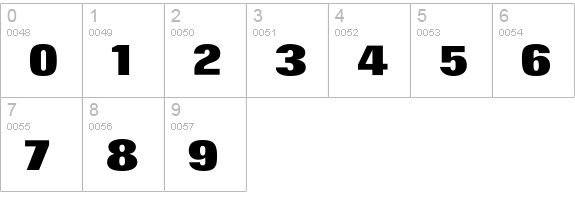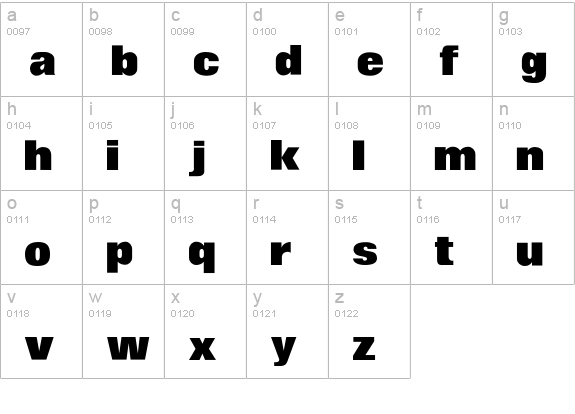
Dakota Font Details
Dakota Font is a stunning and versatile typeface that combines elegance with a modern twist. This font is perfect for a wide range of projects, from branding and logos to invitations and headlines. With its clean lines and contemporary style, Dakota Font adds a touch of sophistication and professionalism to any design. One of the best features of Dakota Font is that it is available for free. Yes, you read that right! This incredible font can be downloaded at no cost from FontsMarket.com. This means that you can enhance your projects without breaking the bank. Whether you are a professional designer or a hobbyist, this free font is a great addition to your font collection. Dakota Font offers a wide range of characters, including uppercase and lowercase letters, numbers, punctuation marks, and special characters. Its unique and eye-catching letterforms are bound to captivate your audience and make your designs stand out from the crowd. The versatility of Dakota Font is truly impressive. It can be used for both print and digital projects, ensuring that your designs will look flawless across various mediums. Whether you are creating a poster, a website, or a business card, this font will add a touch of elegance and sophistication. Furthermore, Dakota Font is incredibly easy to work with. It is compatible with various design software, such as Adobe Illustrator, Photoshop, and InDesign, making it simple to incorporate into your projects. Its well-crafted curves and smooth lines ensure that your text will always appear crisp and clear. In conclusion, Dakota Font is a must-have for any designer or creative individual looking to add a touch of elegance and modernity to their projects. With its stunning design, versatility, and the fact that it is freely available to download at FontsMarket.com, there is no reason not to give this font a try. So go ahead, enhance your designs, and let Dakota Font elevate your creative endeavors to new heights.